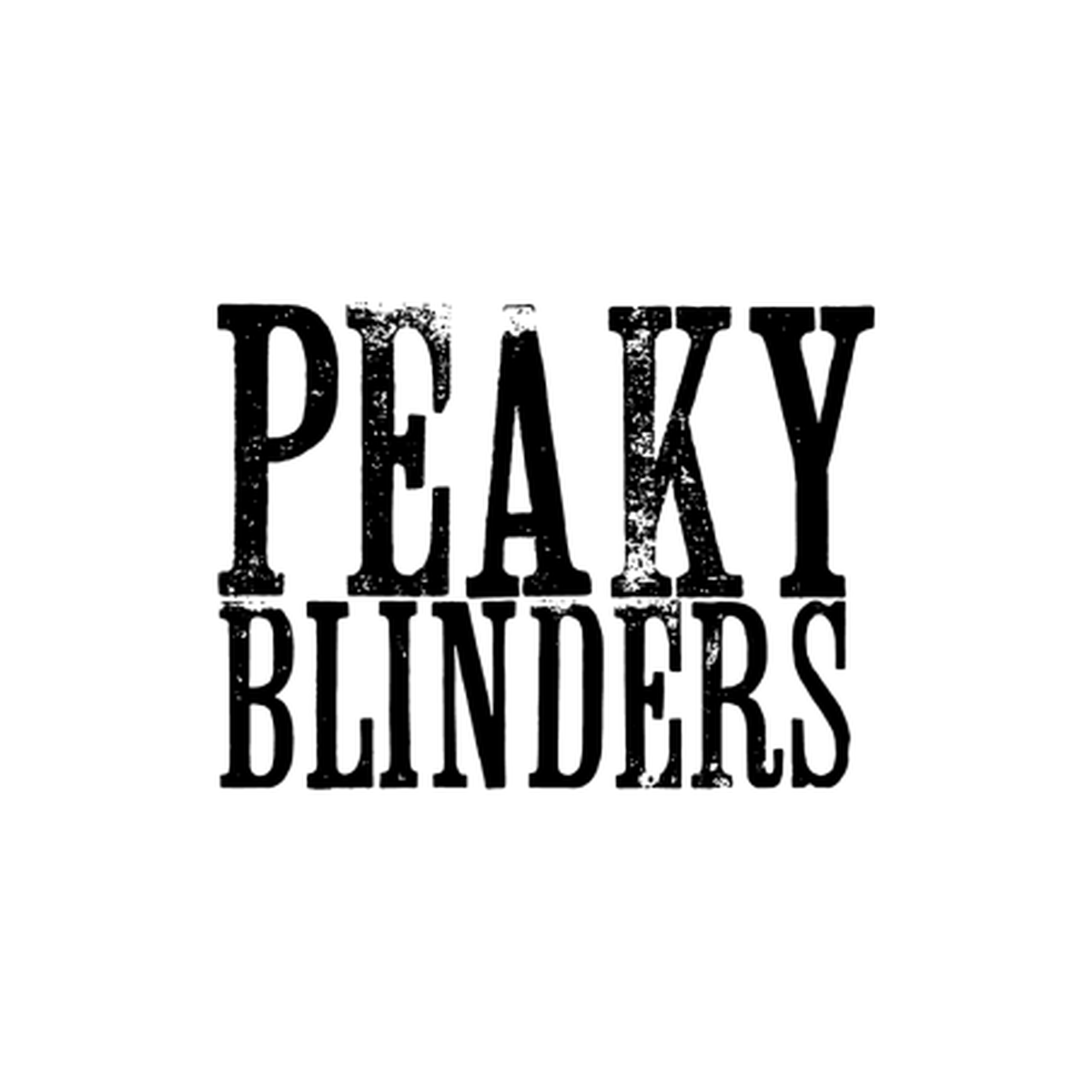
About Peaky Blinders
Peaky Blinders is the BBC One and Netflix crime drama created by Steven Knight, running from 2013 to 2022 across six seasons. It follows the Shelby family, a Birmingham gangster outfit operating in the political and social aftermath of the First World War. The title card uses an ultra-condensed thin display slab-serif, letterforms whose extreme vertical compression match the cropped, tailored silhouettes of the show's costuming.
Peaky Blinders quickly became one of the BBC's most exported dramas, with a global Netflix audience and a tightly-controlled visual identity carried across every promo, soundtrack release, and tie-in product. The show's typography is a key part of that identity: tall, narrow, and quietly menacing, the lockup reads as period-correct British wood-type signage updated for prestige television. The hand-cut wood-type register has since spread across competing period-crime drama branding.
What font does Peaky Blinders use?
Peaky Blinders uses The Peaky Blinders title card uses Alycidon Condensed, a thin ultra-condensed display slab from Ray Larabie at Typodermic Fonts. A commercial release. The font on this page is Lipi's original generated lookalike of that ultra-condensed thin slab-serif style.
Where this style works
Ultra-condensed thin display slabs work hard on period-drama title cards, vintage wayfinding and signage, craft-brewery and spirits packaging, tattoo-shop and barbershop branding, prestige-TV marketing, and any layout that needs to feel hand-cut and tightly controlled. The extreme vertical compression carries instant menace at any scale.
What fonts are similar to Alycidon Condensed?
Comparable ultra-condensed thin display slabs include Hamilton Wood Type's revivals, the Old West and Saloon families, and similar vintage-display slabs from Hoefler and House Industries. Most are commercial. Free alternatives in adjacent territory include Big Shoulders Display Thin from Google Fonts.
Peaky Blinders Font: Basalt Fang
Lipi-generated lookalike of the font used in Peaky Blinders. 81 languages with full diacritic coverage, one commercial license.